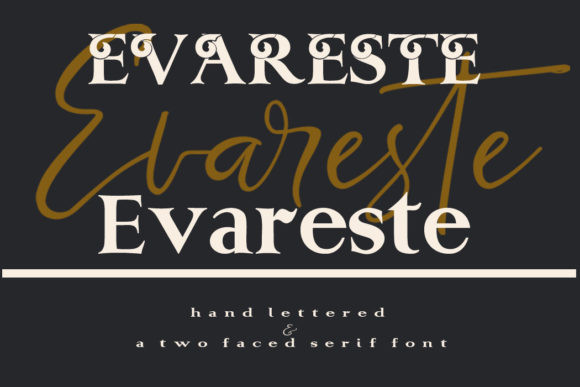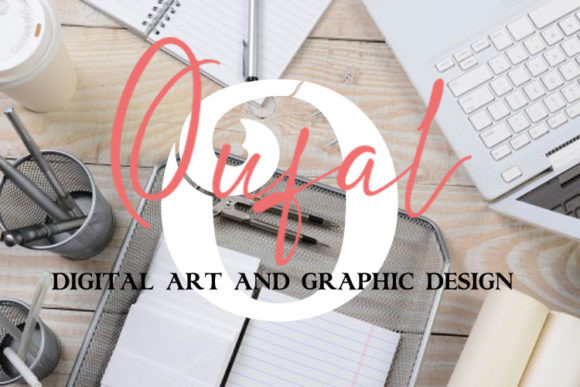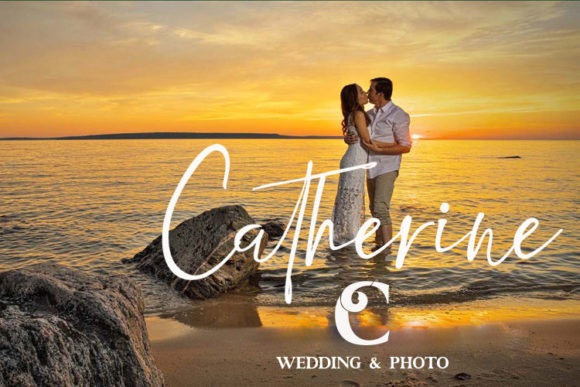
Evareste Font
Evareste duo is a match made in heaven, the authentic glyphs of the script perfectly complement the serif’s style. Combining these two fonts on your next design will give your next design a modern and fancy feel.